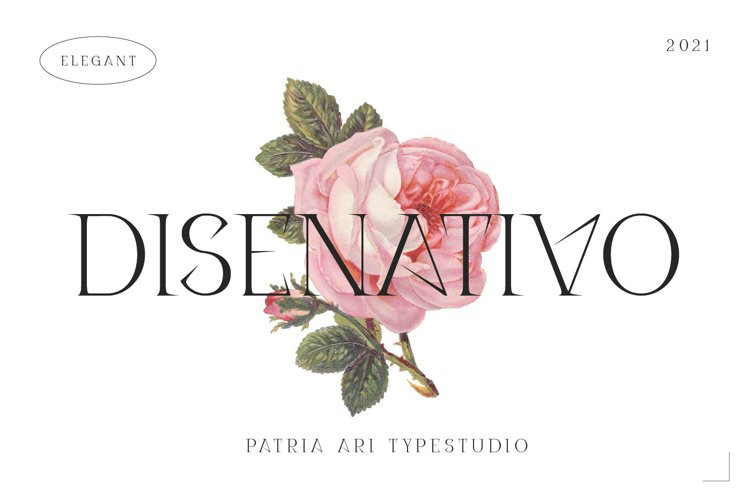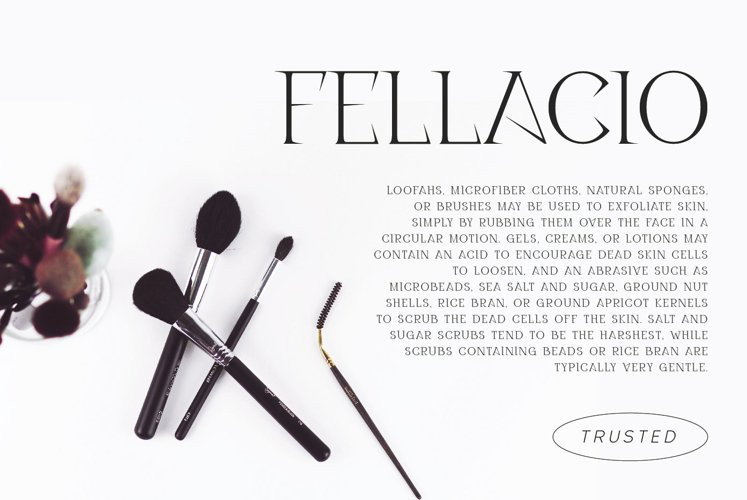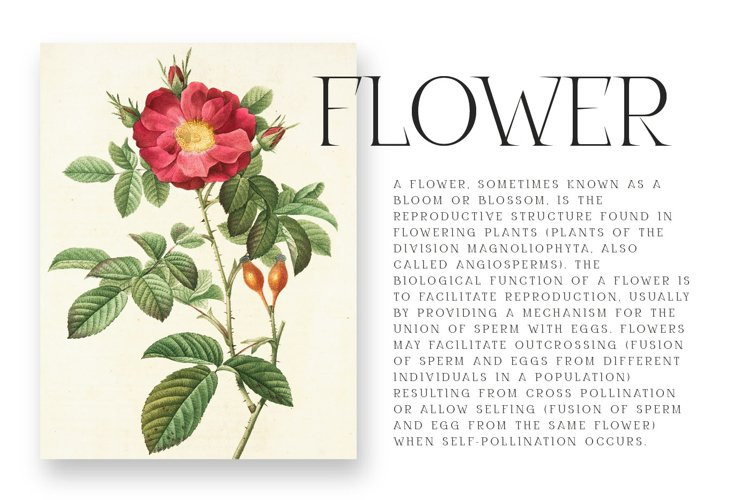
Disenativo Font
Disenativo FontDisenativo is an all caps typeface with sharp and elegant shapes combined with touch of modern and simplicity. With this typeface, you can use it for magazine cover, headline, wedding invitations, logo, powerpoint templates design, and many more.